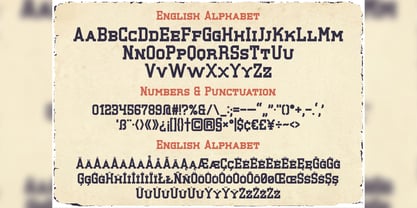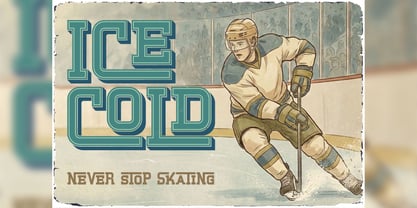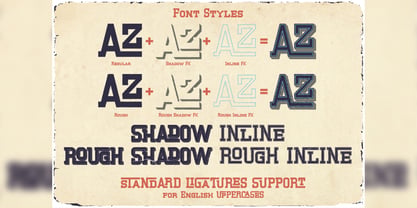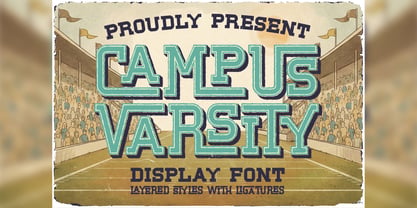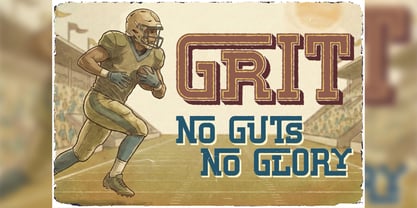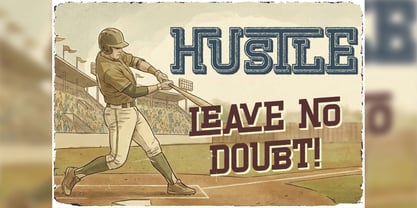
Campus Varsity
by Vozzy
The Campus Varsity Font Family was designed by Oleg Voznyy and published by Vozzy. Campus Varsity contains 10 styles and family package options. More about this family
Introducing "Campus Varsity," a distinctive font designed to make a statement in headlines and accent inscriptions. Perfect for attracting attention, this font features a rich array of additional characters, punctuation marks, and multilingual options, along with an extensive selection of standard ligatures (ensure your software supports this OpenType feature). "Campus Varsity" is ideal for branding, web design, and editorial projects, adding a touch of flair to your creative endeavors. Elevate your designs with this eye-catching typeface!
Designers: Oleg Voznyy
Foundry: Vozzy
Campus Varsity